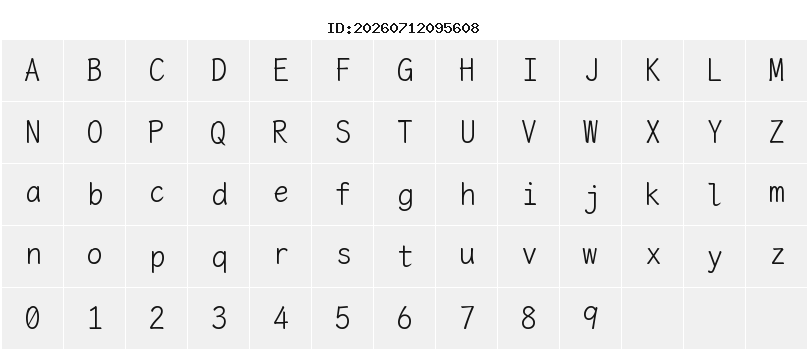
霞鹜文楷等宽 Light Preview
• Font Name: 霞鹜文楷等宽 Light
• Font ID: LXGW WenKai Mono Light:Version 1.520
• Full Font Name: 霞鹜文楷等宽 Light
• Version: Version 1.520; June 14, 2025
• PostScript Name: LXGWWenKaiMono-Light
• Character Count: 45525
• Designer: LXGW / Fontworks Inc.
• Manufacturer: LXGW / Fontworks Inc.
About 霞鹜文楷等宽 Light.ttf
霞鹜文楷等宽 Light.ttf is a modern, elegant sans-serif font designed for ultimate readability and visual harmony. Perfect for branding, headlines, web design, and print materials.